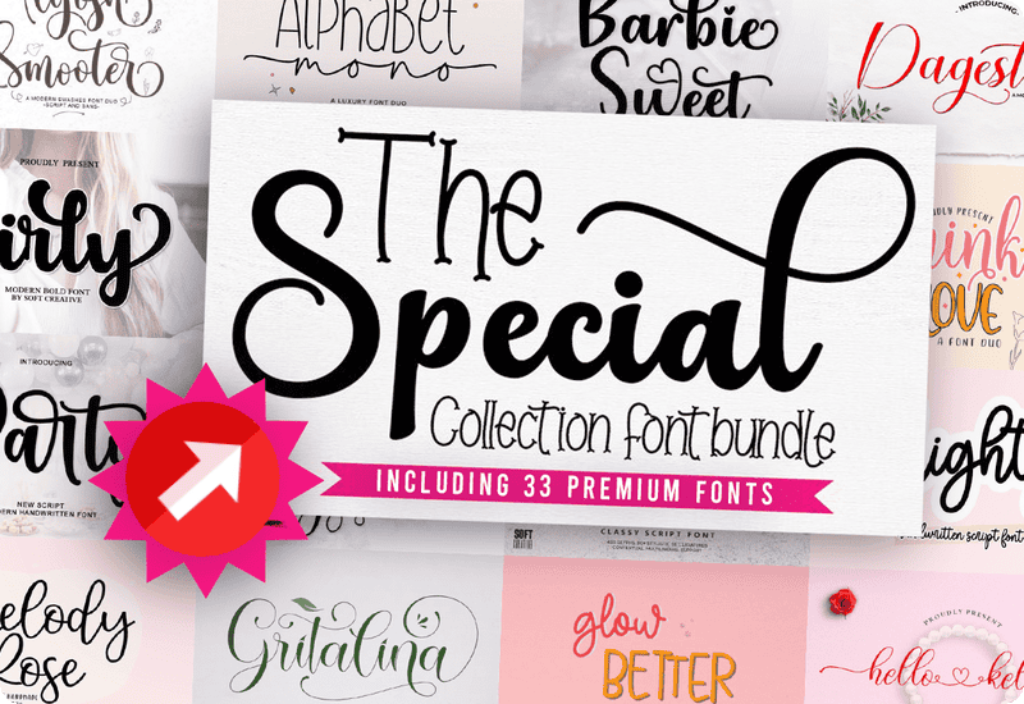
A Versatile Font Collection for Designers, Crafters, and Creatives
With a mix of script, handwritten, retro, modern, and display fonts, this bundle offers elegance, creativity, and versatility for designers, crafters, and business owners. Each font is carefully crafted to ensure smooth curves, sharp details, and professional quality, helping you bring unique and polished typography to any project.
What’s Included in The Special Collection Font Bundle?
✔ 33 Premium Fonts – A diverse selection of high-quality fonts for different design needs.
✔ Multiple Font Styles – Includes script, handwritten, modern, retro, and display fonts.
A Unique Mix of Fonts for Every Design Style
This bundle offers a well-balanced mix of script, display, and handwritten fonts, making it perfect for branding, invitations, social media posts, digital content, and more.
Featured Fonts & Their Uses:
✔ Script & Handwritten Fonts – Perfect for elegant invitations, greeting cards, and wedding stationery.
✔ Modern & Sans-Serif Fonts – Ideal for branding, websites, and business presentations.
✔ Retro & Display Fonts – Great for posters, logos, and vintage-themed designs.
✔ Calligraphy & Signature Fonts – Create beautiful signatures, personal branding, and stylish typography.
✔ Duo & Mono Fonts – A mix of fonts that complement each other for professional projects.
Each font is designed to maintain readability and artistic appeal, ensuring a polished look for both digital and print materials.
33 Premium Fonts included in this bundle:
- Pinky Retro Script & Handwritten Font
- Girly Script & Handwritten Font
- Himalaya Script Script & Handwritten Font
- Antara Script & Handwritten Font
- Melody Rose Duo Script & Handwritten Font
- Rossie Dreams Display Font
- Party Script & Handwritten Font
- The Beauty Blink Script & Handwritten Font
- Barbie Sweet Fuentes Caligráficas Fuente
- Pinky Love Font Duo Script & Handwritten Font
- Alphabet Mono Duo Script & Handwritten Font
- Hello Flansher Script & Handwritten Font
- Gabrye Script & Handwritten Font
- Willgets Script & Handwritten Font
- Glow Better Script & Handwritten Font
- Butter Sweetish Script & Handwritten Font
- Silfer Queen Skript-Schriftarten Schriftart
- Gritalina Script & Handwritten Font
- Hello Kelly Script & Handwritten Font
- Hegia Sophia Fontes Script Fonte
- Western Duo Script Fonts Font
- Amelia Script Script & Handwritten Font
- Snailer Fuentes Display Fuente
- Alphire Script & Handwritten Font
- Bryttani Script & Handwritten Font
- Algosh Smooter Script & Handwritten Font
- Everytime Script & Handwritten Font
- Mighty Script & Handwritten Font
- Frelline Script & Handwritten Font
- Sugar Garden Script & Handwritten Font
- Smithe Signature Script & Handwritten Font
- Derlone Script & Handwritten Font
- Dagestan Script Script & Handwritten Font
With 33 fonts covering a wide range of styles, this bundle makes it easy to create professional and visually appealing designs.